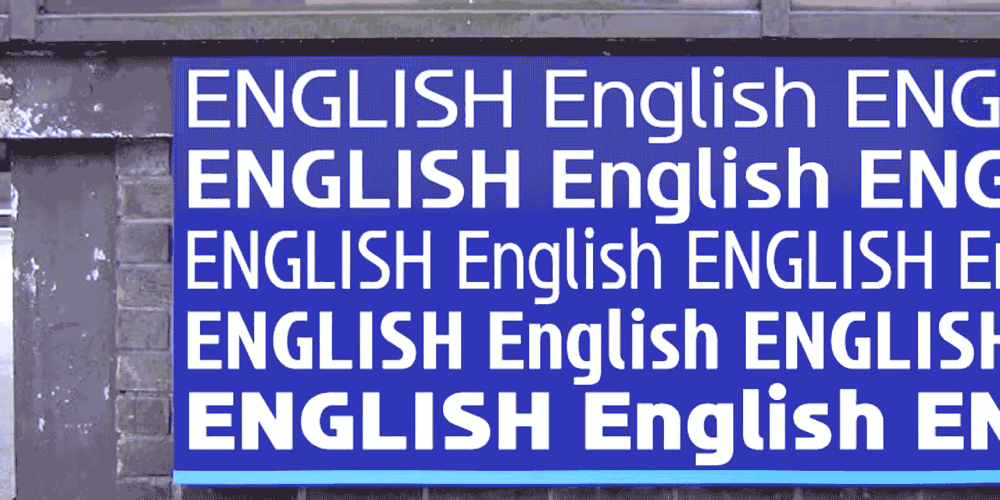
English Font Family was designed by published by K-Type. English contains 2 styles and family package options. The English family of fonts began life as an attempt to crossbreed the strength of the ubiquitous Helvetica with the home-grown elegance of Gill Sans. A host of other influences began to creep in, a Rotis curl to the C for instance – perhaps it should be called Englisch.